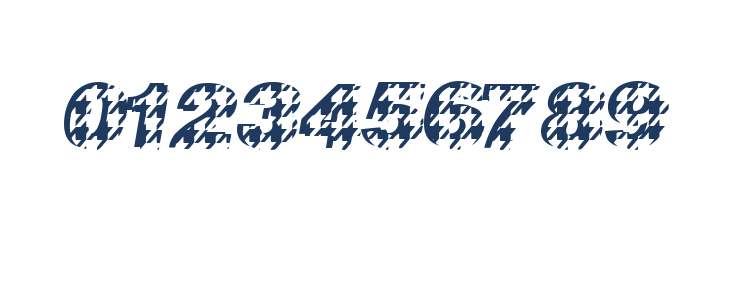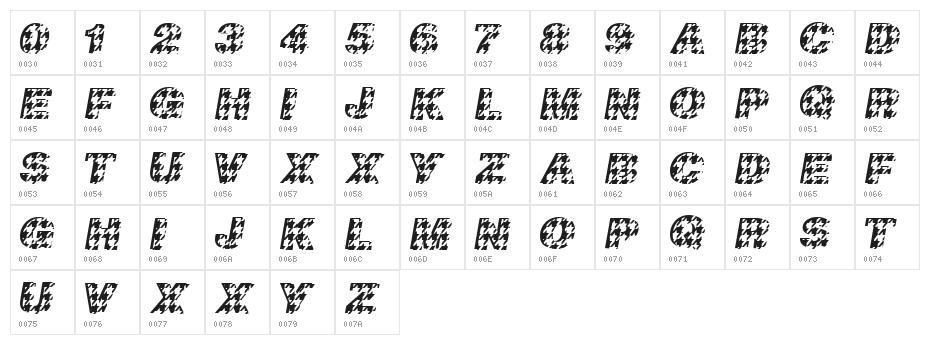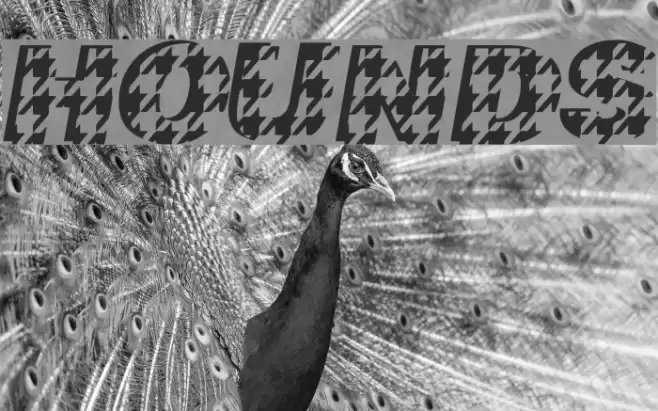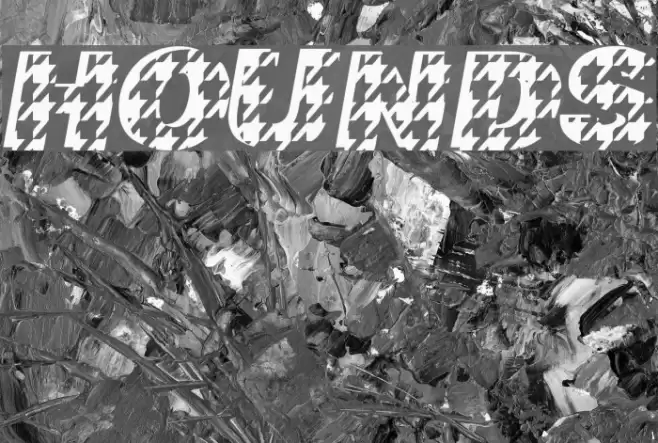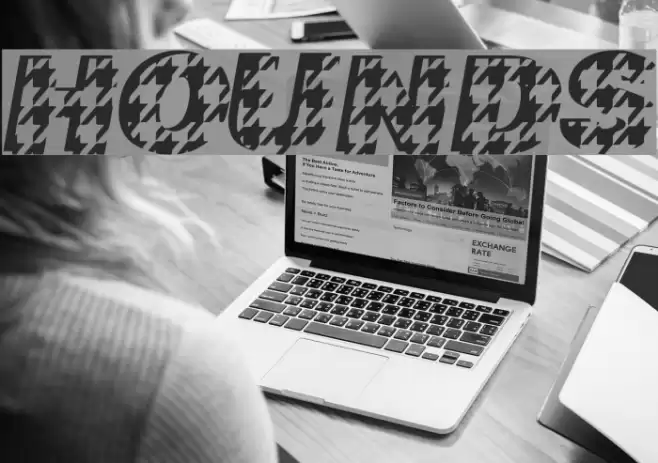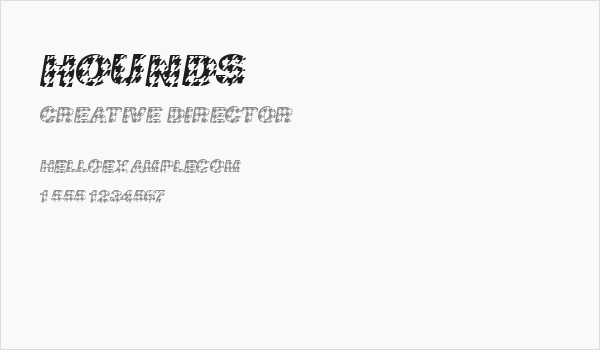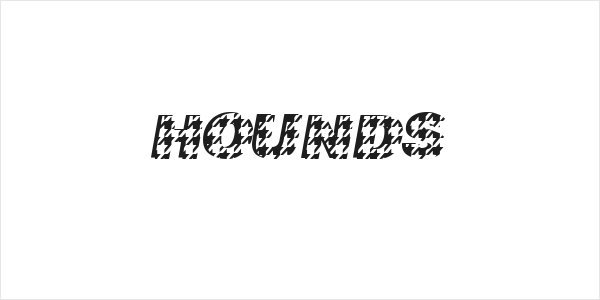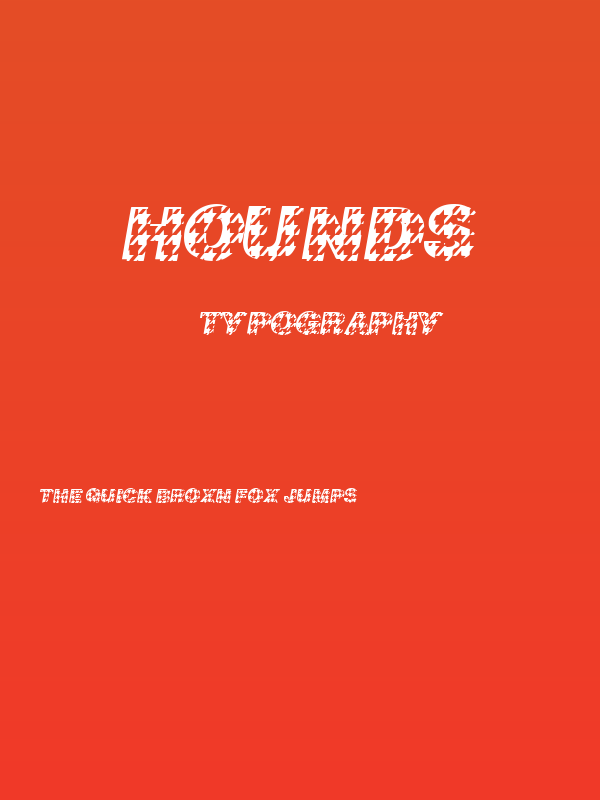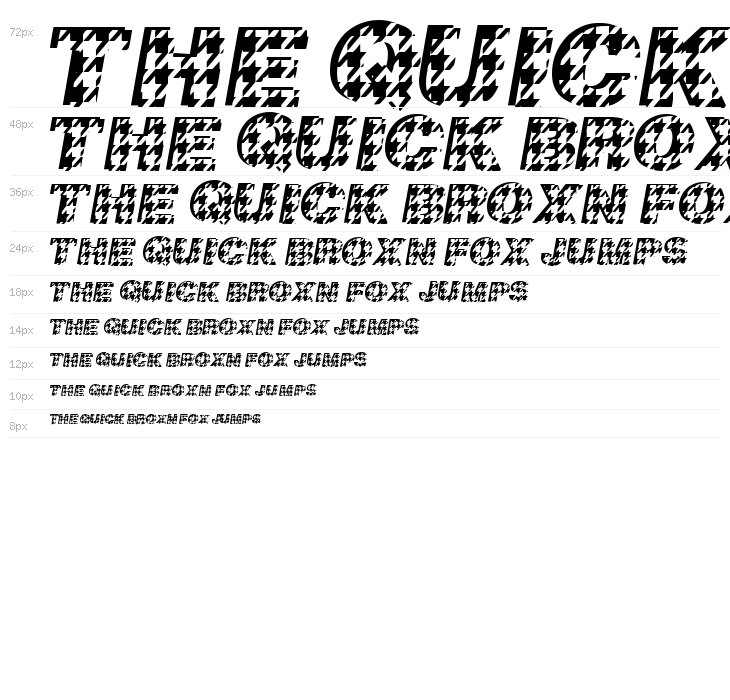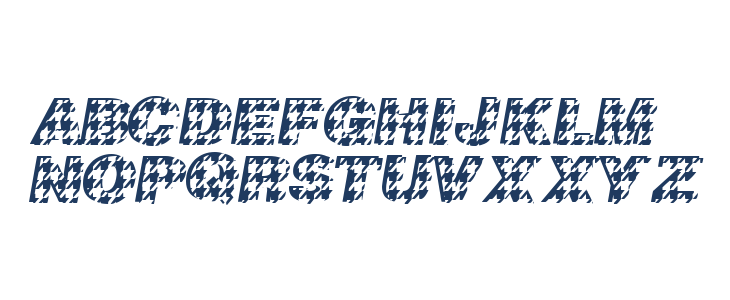
Hounds Font
Hounds Description
This font features a bold, decorative style with a houndstooth pattern filling each character. The uppercase and lowercase letters are designed with a consistent pattern that adds a unique texture, making it stand out in any design. The numbers and special characters follow the same pattern, ensuring uniformity across all characters. The font's boldness and distinct pattern make it ideal for eye-catching designs. Its decorative nature suggests a playful and creative use, suitable for projects that require a strong visual impact.
Proposed ProjectsIdeal for fashion branding, posters, event invitations, and creative logos.